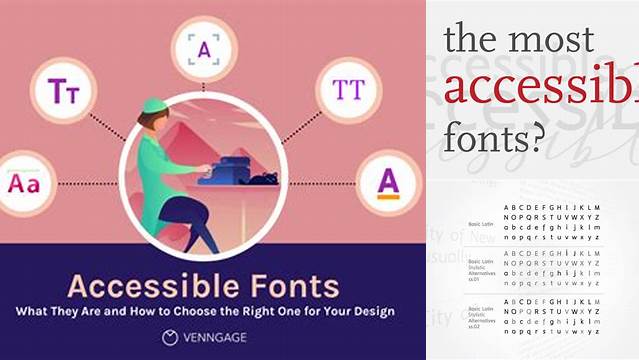
Fonts For Reading Disabilities: A Comprehensive Guide
Choosing the best fonts for reading disabilities can significantly improve the reading experience and comprehension for individuals with dyslexia, dysgraphia, and other reading challenges. It's about more than just aesthetics; it's about functionality and making text accessible. Best fonts for reading disabilities should prioritize clarity, distinct letterforms, and appropriate spacing to minimize visual stress and enhance readability. This comprehensive guide dives into the world of accessible typography, exploring specific fonts, their characteristics, and why they work well for readers with diverse needs. Guys, let's dive in and make some fonts make sense!
Understanding Reading Disabilities and Their Impact on Font Choice
Before selecting the best fonts for reading disabilities, it's crucial to understand the specific challenges these individuals face. Dyslexia, for example, often involves difficulties with letter recognition, sequencing, and processing. This can lead to letters appearing jumbled or words blending together. Dysgraphia, on the other hand, can affect handwriting and the ability to form letters correctly, which can extend to reading difficulties. Other visual processing issues can impact how the brain perceives and interprets text. These challenges influence the ideal font characteristics for enhanced readability. To address these challenges, fonts need to be designed with specific features. For example, best fonts for reading disabilities often feature distinct letter shapes. This makes it easier for individuals to differentiate between similar-looking letters like 'b' and 'd' or 'p' and 'q'. The spacing between letters, words, and lines is also crucial. Adequate spacing helps to prevent letters and words from running together, reducing the visual clutter that can be overwhelming. Furthermore, the overall design of the font should minimize visual stress. This means avoiding overly ornate or complex letterforms that can be distracting. Fonts should be clean, simple, and easy to recognize at a glance. Research and testing have led to the development of fonts specifically optimized for reading disabilities. Many fonts incorporate features like weighted bottoms or unique letter shapes. These features aim to make the reading experience more comfortable and effective. By understanding these needs, we can pick the right font.
Dyslexia-Friendly Fonts: Key Features and Considerations
When seeking the best fonts for reading disabilities specifically for dyslexia, several key features are essential. Dyslexia-friendly fonts are designed to mitigate the visual challenges that often accompany this learning difference. One of the most important aspects is the distinctiveness of letterforms. Letters like 'b' and 'd' or 'p' and 'q' often appear similar to individuals with dyslexia. Dyslexia-friendly fonts address this by making each letter unique. This might involve slightly altering the shape of the letter, adding a distinctive curve, or giving the letter a different weight. This differentiation helps readers quickly and accurately identify each letter. Adequate spacing between letters and words is another crucial characteristic. The goal is to prevent letters from running together, reducing visual clutter. This improves the reader’s ability to process and understand the text. Dyslexia-friendly fonts often have wider spacing, making it easier for the eye to track words. Font weight also plays a role. Bold or heavier fonts can sometimes make letters more distinct and easier to recognize, especially for readers with visual processing challenges. However, the weight should be balanced to avoid making the text look too dense or overwhelming. Sans-serif fonts are frequently recommended. These fonts lack the small decorative strokes (serifs) at the end of letters, which can sometimes cause confusion for readers with dyslexia. The cleaner lines of sans-serif fonts can be easier to process. The choice of a best fonts for reading disabilities is really about matching font features to specific needs, aiming for better comprehension and making reading less stressful.
The Role of Spacing and Layout in Enhancing Readability
Besides font selection, the spacing and layout of text play a critical role in the accessibility of text for individuals with reading disabilities. Appropriate spacing can dramatically affect how a person with dyslexia or similar difficulties perceives and processes text. Let's talk about it. Letter spacing is a good starting point. Narrowly spaced letters can appear crowded and difficult to distinguish, while sufficient spacing can help letters stand out. The spacing between words is equally important. The space separates individual words, helping the reader clearly define and recognize the text. Proper word spacing reduces the likelihood of words blending together, minimizing visual stress and improving comprehension. Line spacing, also known as leading, is the space between lines of text. Sufficient line spacing provides visual breathing room. It prevents lines from overlapping and makes it easier for the reader to move their eye from one line to the next. Layout considerations extend beyond spacing. The alignment of text, whether left-aligned, centered, or justified, can impact readability. Left-aligned text is often preferred for those with reading difficulties because it provides a consistent starting point for each line. The use of white space, both between paragraphs and around the text block, is important. White space helps break up the text, providing visual breaks and reducing cognitive load. This can prevent the feeling of being overwhelmed by a wall of text. In a nutshell, the best fonts for reading disabilities are coupled with good layout practices to make text accessible. It's about giving the reader enough visual cues to minimize their cognitive load and make reading easier.
Top Font Recommendations for Reading Disabilities
Selecting the best fonts for reading disabilities involves considering factors like letter distinctiveness, spacing, and design. Several fonts have emerged as popular choices among educators, therapists, and individuals with reading disabilities. Let’s check them out, guys!
OpenDyslexic: A Closer Look at Its Design and Effectiveness
OpenDyslexic is a font designed specifically for individuals with dyslexia. Its design features several unique elements. These elements aim to address the visual challenges commonly faced by people with dyslexia. One of the defining features of OpenDyslexic is its weighted base. Each letter is designed with a heavier bottom. This is done to create a visual anchor that helps readers focus on the letter. The heavier bottom makes it easier for the reader's eyes to differentiate letters and prevents them from flipping or rotating. The letters are generally designed with unique shapes. This helps reduce confusion between similar-looking letters. For example, the 'b' and 'd' are given unique shapes to make them easier to distinguish. This is a key factor in the font's effectiveness. OpenDyslexic uses a sans-serif design. This means it lacks the small decorative strokes (serifs) found at the end of letters. The sans-serif style is often thought to reduce visual clutter. This is helpful for people with dyslexia who can get overloaded by complex letterforms. The spacing between letters and words in OpenDyslexic is thoughtfully considered. The font often incorporates wider spacing. This can help separate letters and words, reducing the risk of visual confusion. The font is widely accessible and available for free. It's a great option for students, educators, and anyone looking for an easy-to-use font. The effectiveness of OpenDyslexic has been a subject of discussion. While some studies show that it improves reading speed and accuracy, others find little to no difference. Ultimately, the best fonts for reading disabilities is all about individual preferences.
Arial and Helvetica: Exploring Their Suitability for Readers with Challenges
Arial and Helvetica are widely used sans-serif fonts known for their clean and simple designs. These qualities make them potentially good choices for readers with reading disabilities. However, their suitability depends on individual needs and preferences. Arial is a very popular font and is available on many devices. It's characterized by clear letterforms, making it generally easy to read. The sans-serif design eliminates the decorative strokes found in serif fonts, which helps reduce visual clutter and can be a good choice for some readers. However, Arial might not have the same level of distinction between letters as fonts specifically designed for dyslexia. The letters 'b' and 'd' are fairly similar in Arial, potentially causing confusion for some readers. Helvetica is another clean and widely used sans-serif font. It shares many of the same characteristics as Arial. It's simple, clear, and easy to read. Like Arial, Helvetica might lack the special features of other fonts. This means it might not offer the specific letter differentiation or spacing needed. When using Arial or Helvetica, the key is to adjust the spacing and layout to optimize readability. Increasing the letter and word spacing can make a significant difference, as can using sufficient line spacing. The best fonts for reading disabilities ultimately boils down to the reader's individual needs and their response to these fonts. Experimentation is often needed to determine which font works best for each individual.
Other Recommended Fonts: Lexend, Comic Sans, and More
Besides OpenDyslexic, Arial, and Helvetica, many other fonts can be valuable for individuals with reading disabilities. Let's check out some of these other options! Lexend is a sans-serif font developed with the goal of improving readability. Lexend incorporates features such as generous spacing and unique letter shapes. These elements aim to reduce visual stress and make reading easier for people. Comic Sans has a mixed reputation, but can be effective in some contexts. It is known for its informal and friendly appearance, and its distinct letterforms. The distinctness can be a real boon for readers who struggle with letter recognition. It's worth noting that while Comic Sans can be helpful for some, it's not always the best choice. Some people may find it unprofessional or distracting. Other fonts like Dyslexie, which is designed for people with dyslexia, are worth considering. Dyslexie focuses on creating distinct letter shapes and spacing. Its aim is to reduce visual confusion and make reading easier. The best approach is to experiment with different fonts and see what works best. Adjusting the layout is also critical. This can include changes to letter spacing, word spacing, and line spacing. It can also extend to the background color, text size, and more. Ultimately, the best fonts for reading disabilities are about finding what works best for the reader.
Tips for Customizing Fonts and Layout for Enhanced Readability
Beyond selecting the best fonts for reading disabilities, customizing font settings and layout can further improve readability. Let's explore different ways to tailor the reading experience to meet specific needs.
Adjusting Font Size and Weight for Optimal Viewing
Altering the font size and weight can significantly affect readability for individuals with reading disabilities. Finding the right font size is very important. The goal is to find a size that is large enough to be easily read without causing visual overload. The ideal size will vary from person to person. It depends on things like visual acuity, the specific challenges they face, and the device being used. Try increasing the font size until the text feels comfortable. Experiment with different sizes to determine the optimal level for reading. The font weight can also be tweaked to help with readability. Using a heavier font weight can sometimes make the letters more distinct and easier to recognize, especially for those with visual processing challenges. However, a weight that is too bold can make the text appear dense and overwhelming. Finding the right balance is essential. Many devices and applications allow you to adjust font weight easily. You can generally choose from various options, such as normal, bold, or semi-bold. You can test different settings to discover what helps your reading. The choice is really about the individual needs of the reader. The best fonts for reading disabilities should be combined with adjustments in font size and weight for improved comprehension and comfort.
How can I learn more about accessible typography?
You can explore resources online. Search for articles and guides on accessible typography and reading disabilities. Look at websites of organizations that focus on dyslexia or visual impairments. They often provide guidance and tips. You can also consult with a design or typography expert. You can find the latest research and best practices.